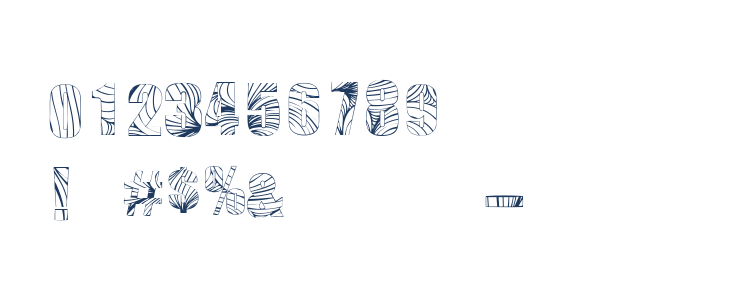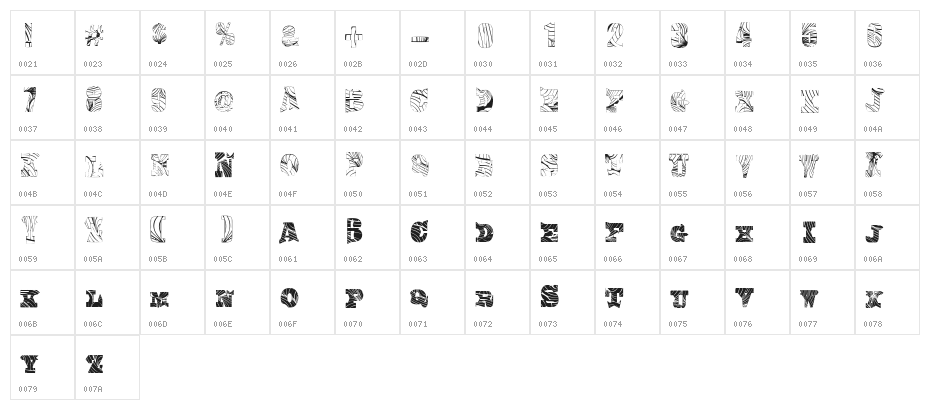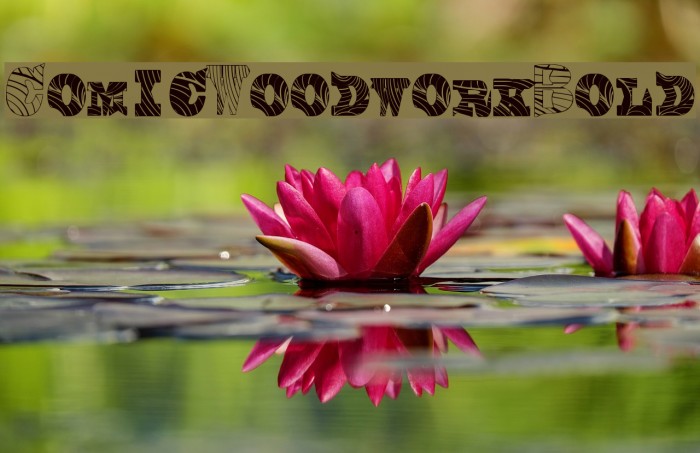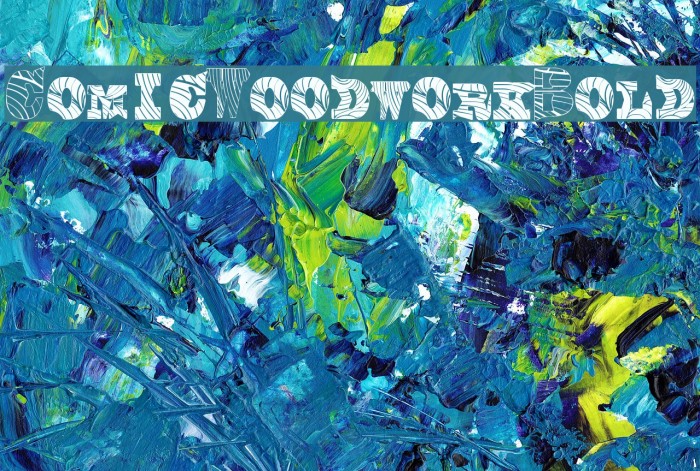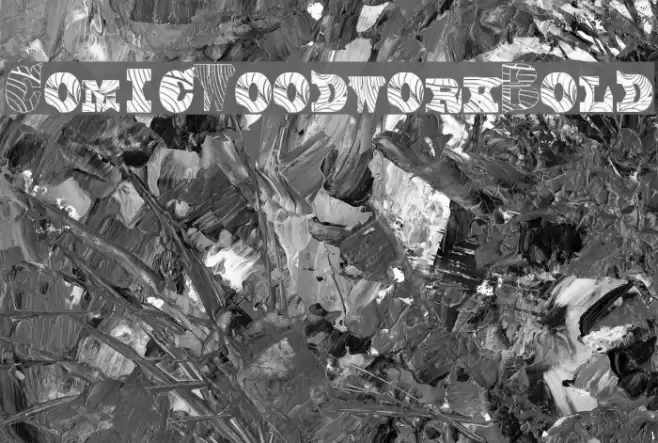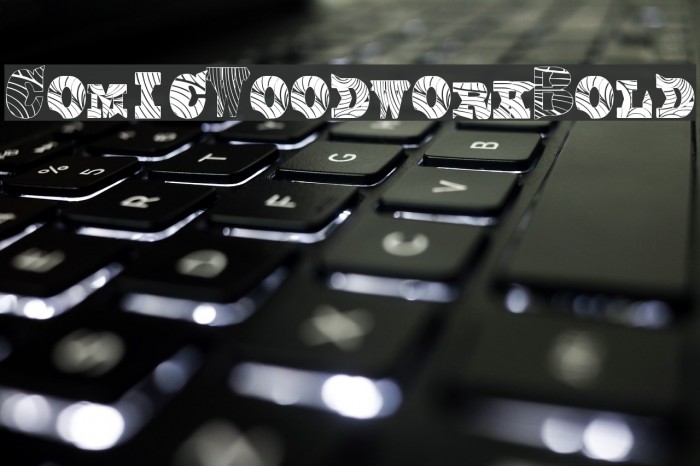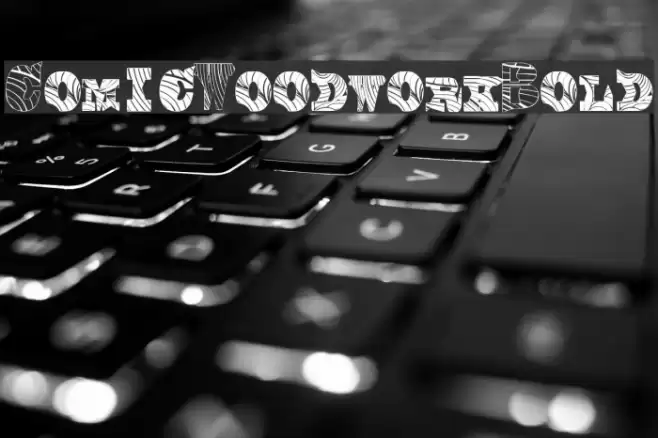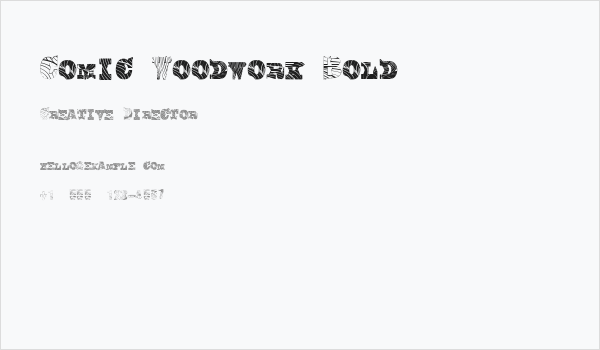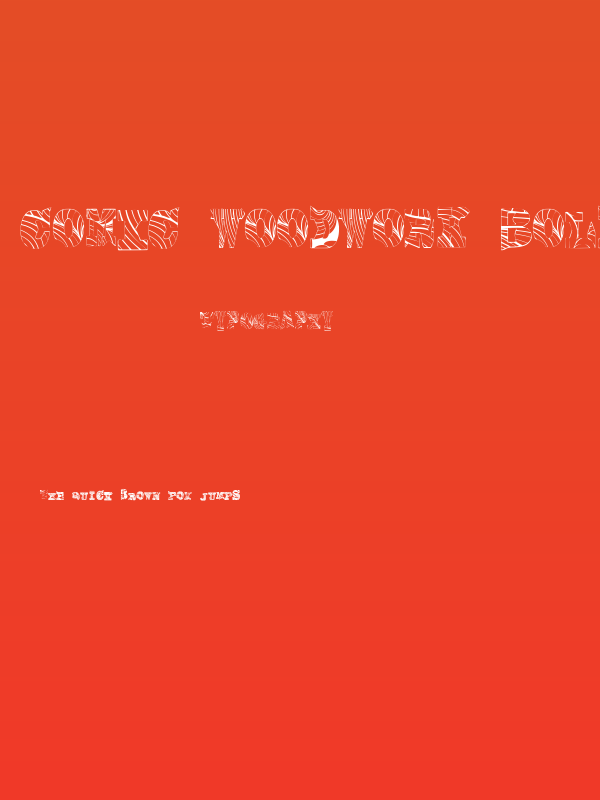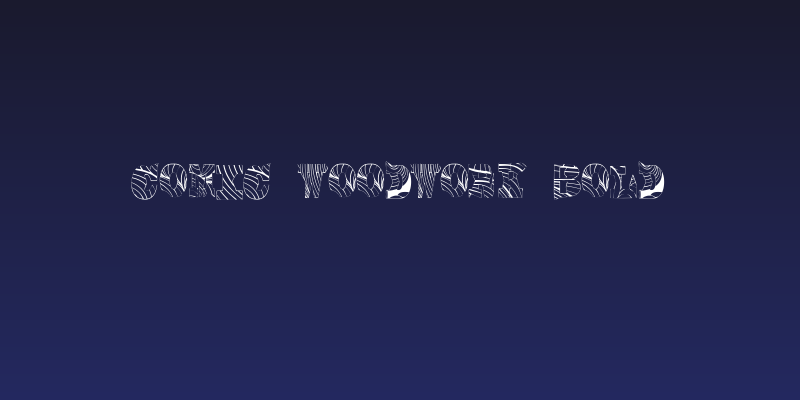
Comic Woodwork Bold Font
Comic Woodwork Bold Description
This font features a bold and playful design with a unique wood grain pattern filling each character. The uppercase and lowercase letters, as well as numbers and special characters, are designed with a comic-like style that adds a whimsical touch. The intricate detailing of the wood texture gives it a handcrafted appearance, making it stand out in any design project. The boldness of the font ensures high visibility and impact, suitable for eye-catching headlines or creative displays.
| Proposed Projects | Ideal for children's book covers, playful posters, creative branding, and any project requiring a fun and distinctive typeface. |